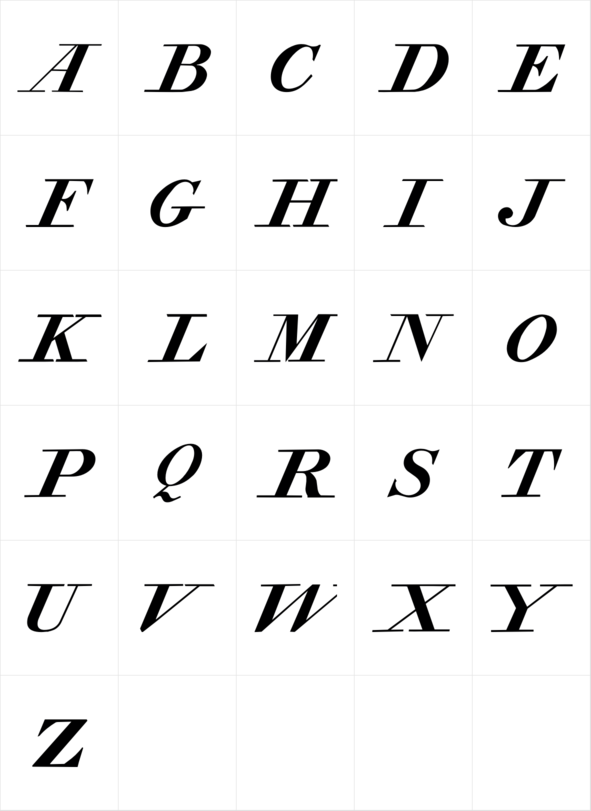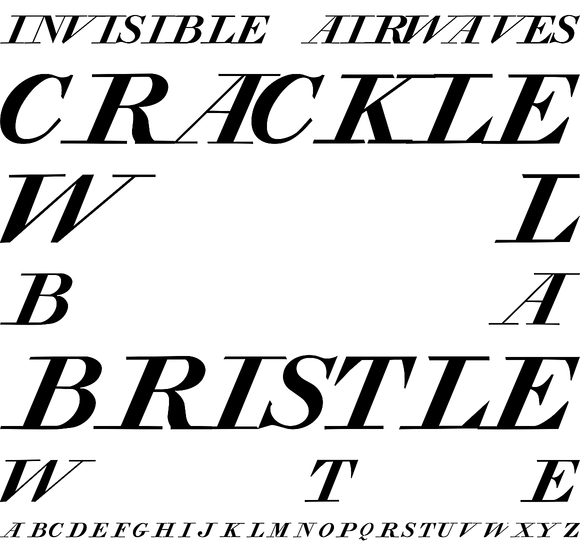
Zooth is a decorative display face remastered from older type drawings. The design is for uppercase letters only and is best used for header and display uses only.